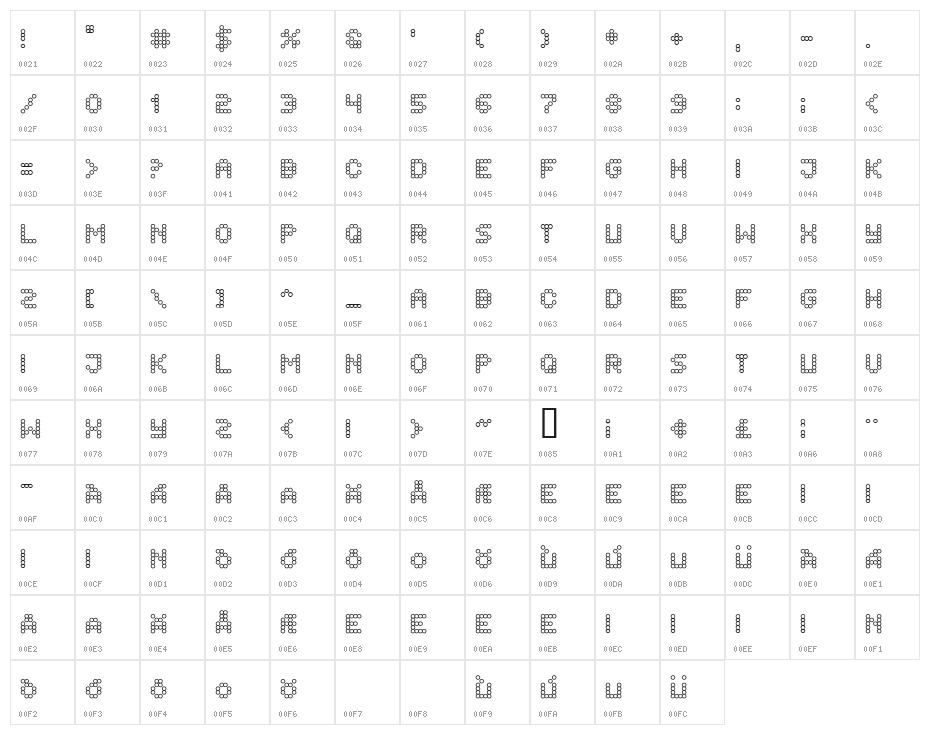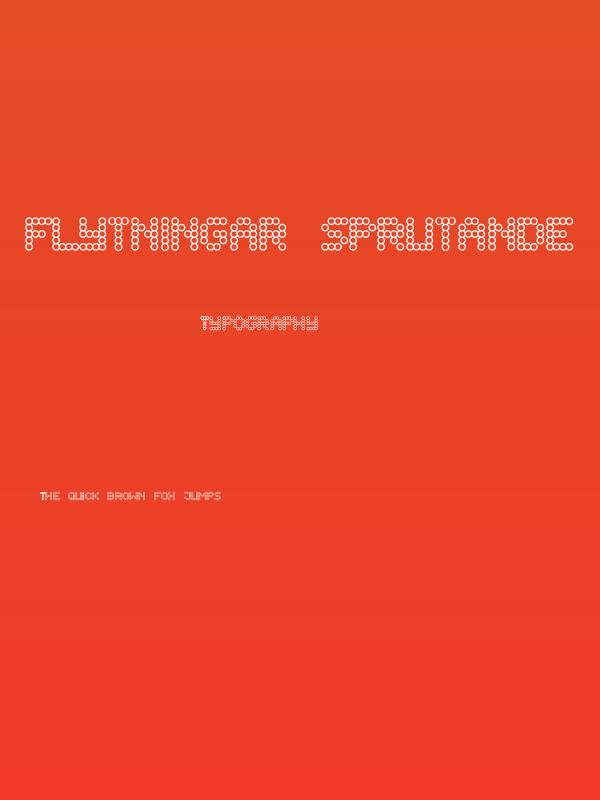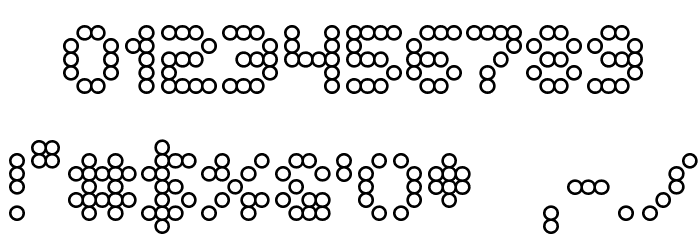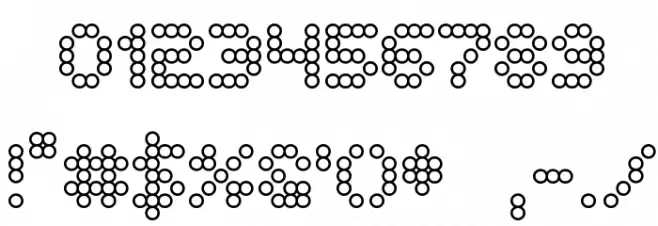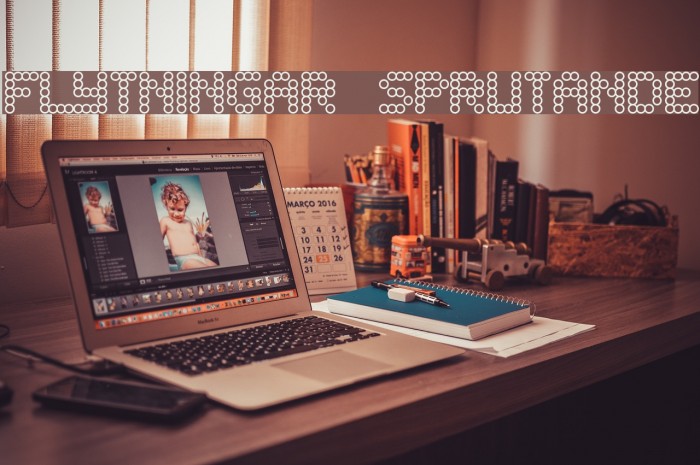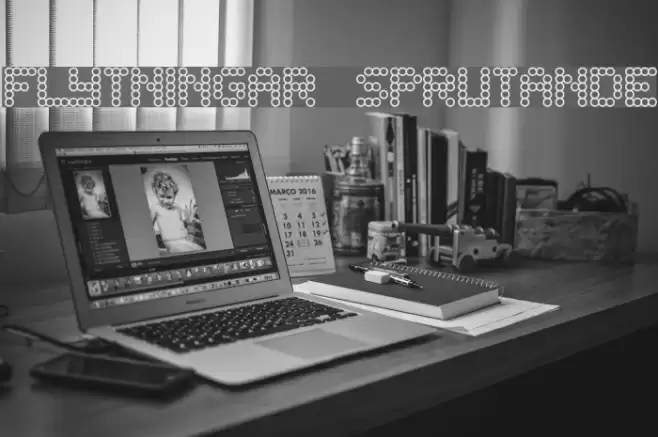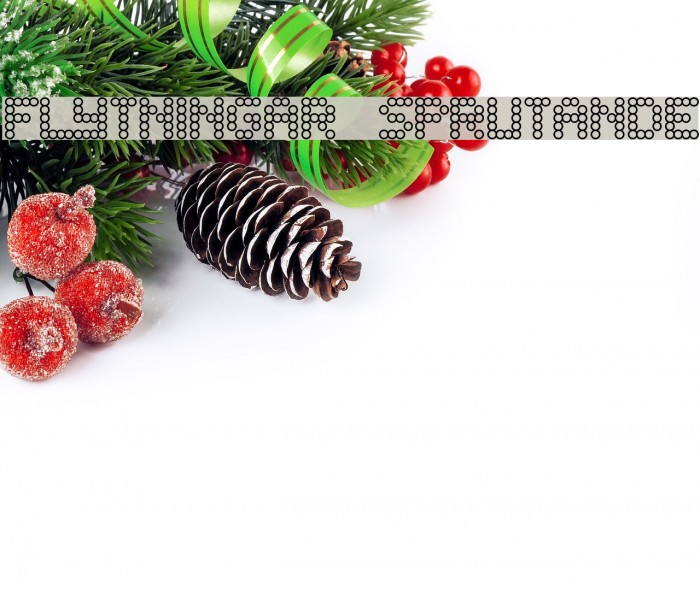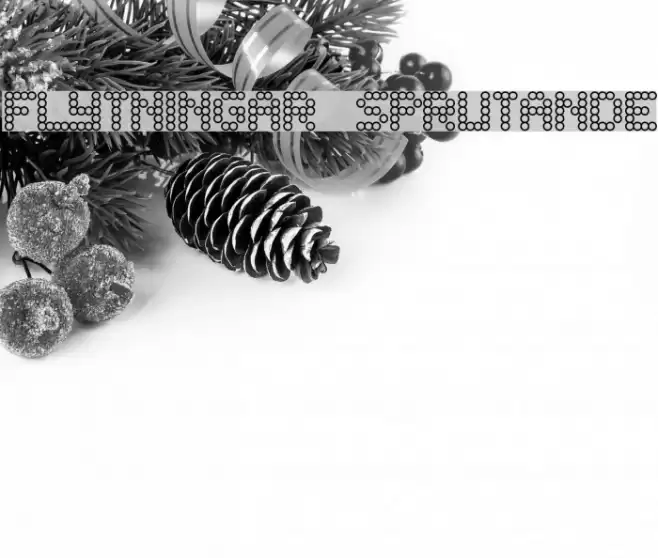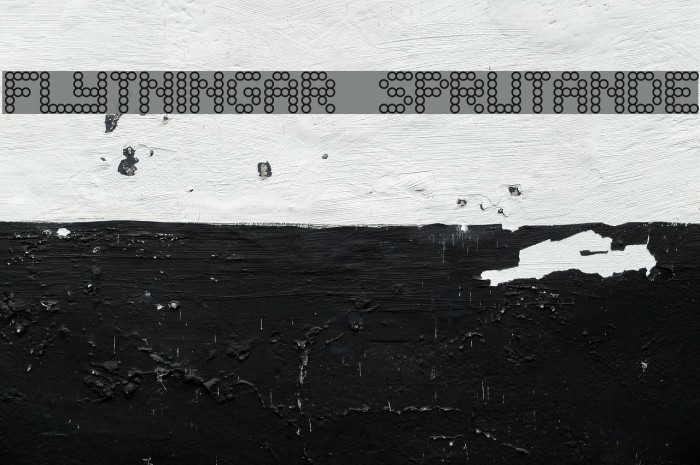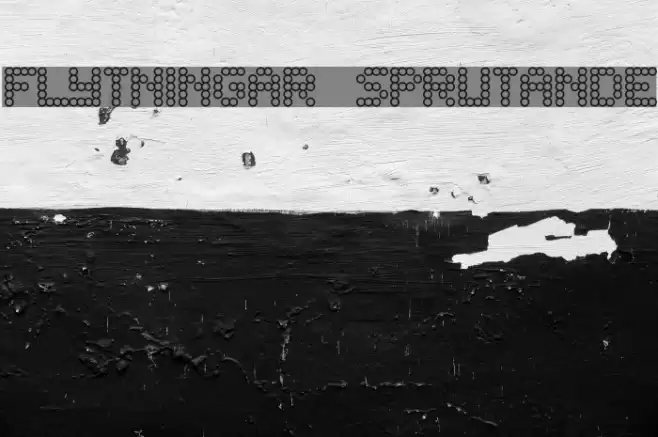
Flytningar sprutande Font
Flytningar sprutande Description
This font features a unique design composed of small, evenly spaced circles forming each character. The geometric arrangement creates a pixelated effect, giving it a modern and playful appearance. Each letter and number is constructed with precision, maintaining uniformity across the set. The characters are bold and easily distinguishable, making them suitable for creative and eye-catching designs. The font's distinct style is both decorative and functional, offering a fresh take on traditional typography.
| Proposed Projects | Ideal for digital art, posters, logos, and any project requiring a modern and playful aesthetic. |